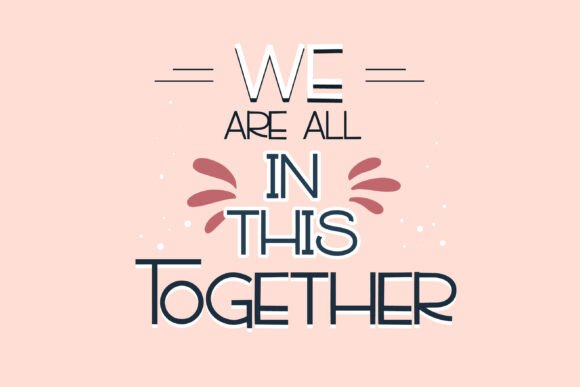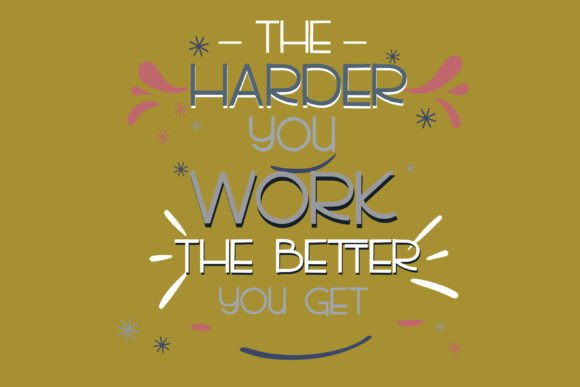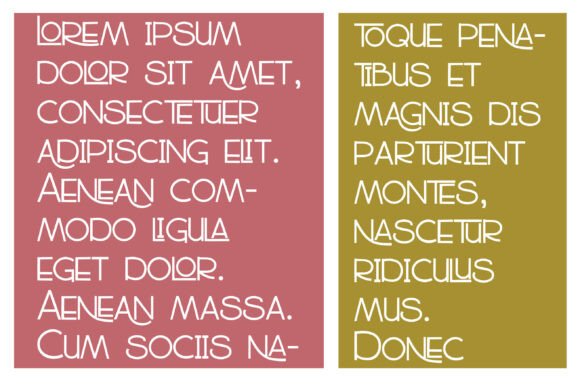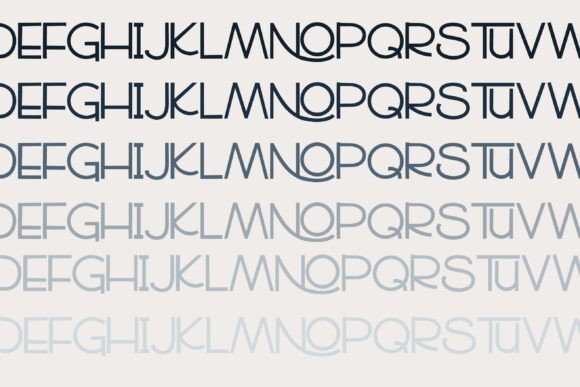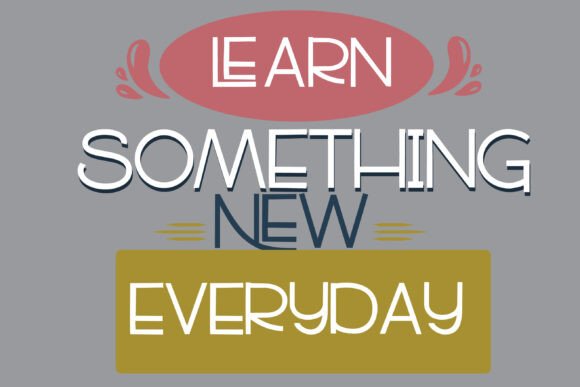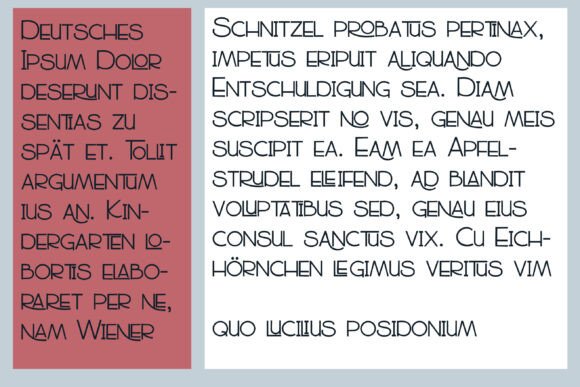
Introducing Gabardine Font: A Charming Hand-Crafted Sans Serif
Are you tired of using the same old fonts for your design projects? Look no further than Gabardine Font, a delightful hand-crafted sans serif that’s sure to add a touch of personality to your work. This adorable font features a unique print with cute ligatures that will keep things interesting, making it perfect for designers and crafters looking for a distinctive look.
A hand-crafted font, also known as a handwritten font, is a typeface that is designed to mimic the look of handwriting. It’s often used for invitations, greeting cards, and other special occasions where a personal touch is desired. Handwritten fonts can range from formal and elegant to informal and playful, making them versatile for a variety of design projects.
Characteristics of Gabardine Font
Gabardine Font is a sans serif font, which means it doesn’t have the small lines or flourishes at the ends of the letters. This gives it a clean and modern look that’s perfect for designs where you want the text to be the focus. The font is hand-crafted, which means that each letter is carefully drawn to give it a unique and personal feel.
One of the standout features of Gabardine Font is its adorable ligatures. Ligatures are special characters that combine two or more letters into a single glyph. In the case of Gabardine Font, the ligatures are designed to be cute and playful, adding a touch of whimsy to your designs.
Bold and Light Versions
Gabardine Font comes in two versions: bold and light. The bold version is perfect for headlines or titles where you want to make a statement, while the light version is great for body text or descriptions where you want to convey information in a clear and easy-to-read way.
Uses for Gabardine Font
So, what can you use Gabardine Font for? The possibilities are endless! Here are a few ideas to get you started:
- Invitations: Gabardine Font is perfect for wedding invitations, birthday party invites, and other special occasions where you want to add a personal touch.
- Greeting Cards: Use Gabardine Font to create one-of-a-kind greeting cards for holidays, birthdays, and other special occasions.
- Signs: Gabardine Font is great for signs, whether you need to label a product, create a directional sign, or make a statement.
- Social Media Graphics: Add some personality to your social media graphics with Gabardine Font. It’s perfect for creating engaging and shareable content.
Tips for Using Gabardine Font
Here are a few tips for using Gabardine Font in your designs:
- Mix and Match: Experiment with different font sizes, colors, and styles to create visual interest.
- Keep it Simple: Don’t overcomplicate your design. Gabardine Font is perfect for simple, clean designs.
- Play with Ligatures: Take advantage of the adorable ligatures in Gabardine Font to add a touch of whimsy to your designs.